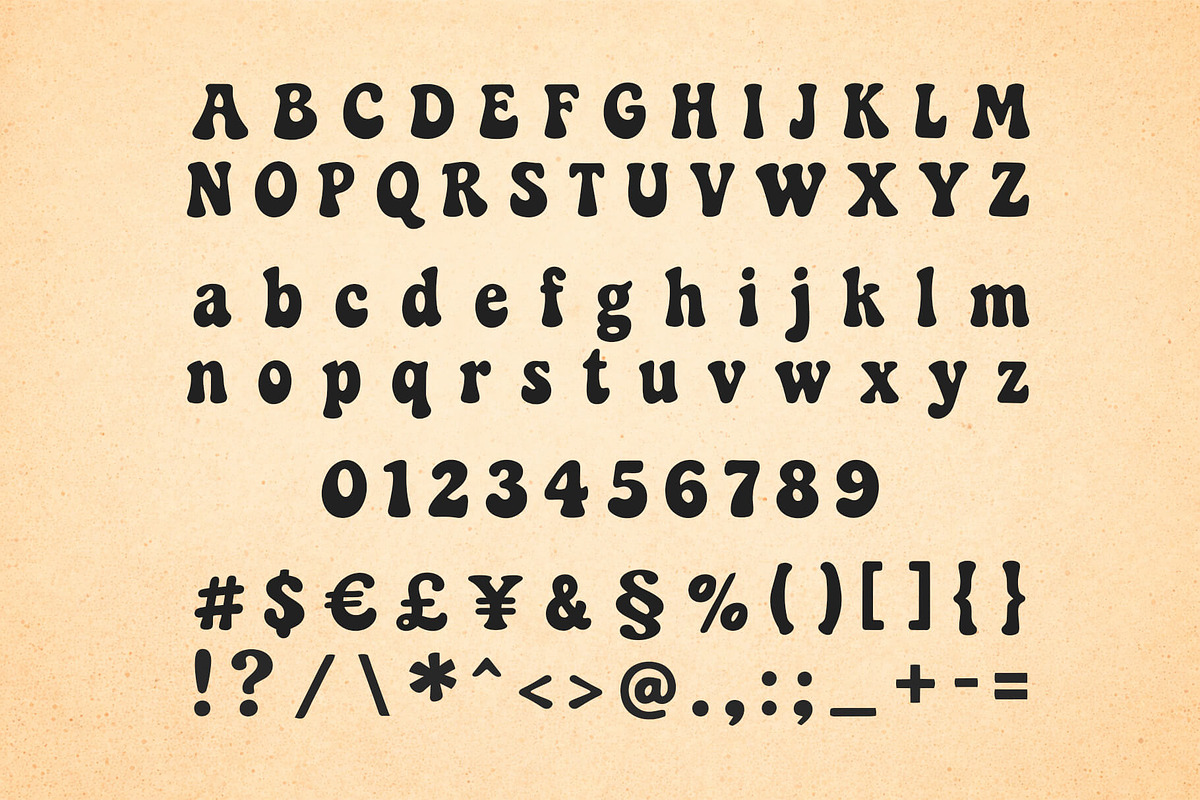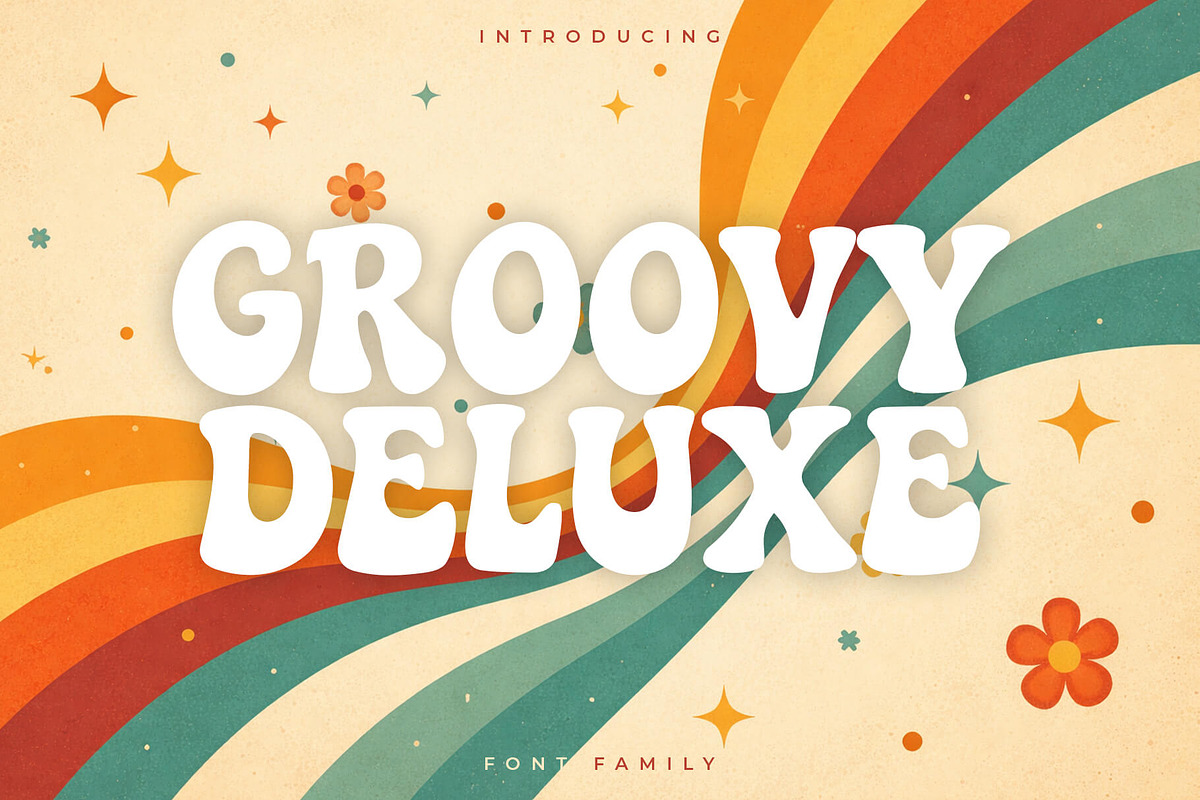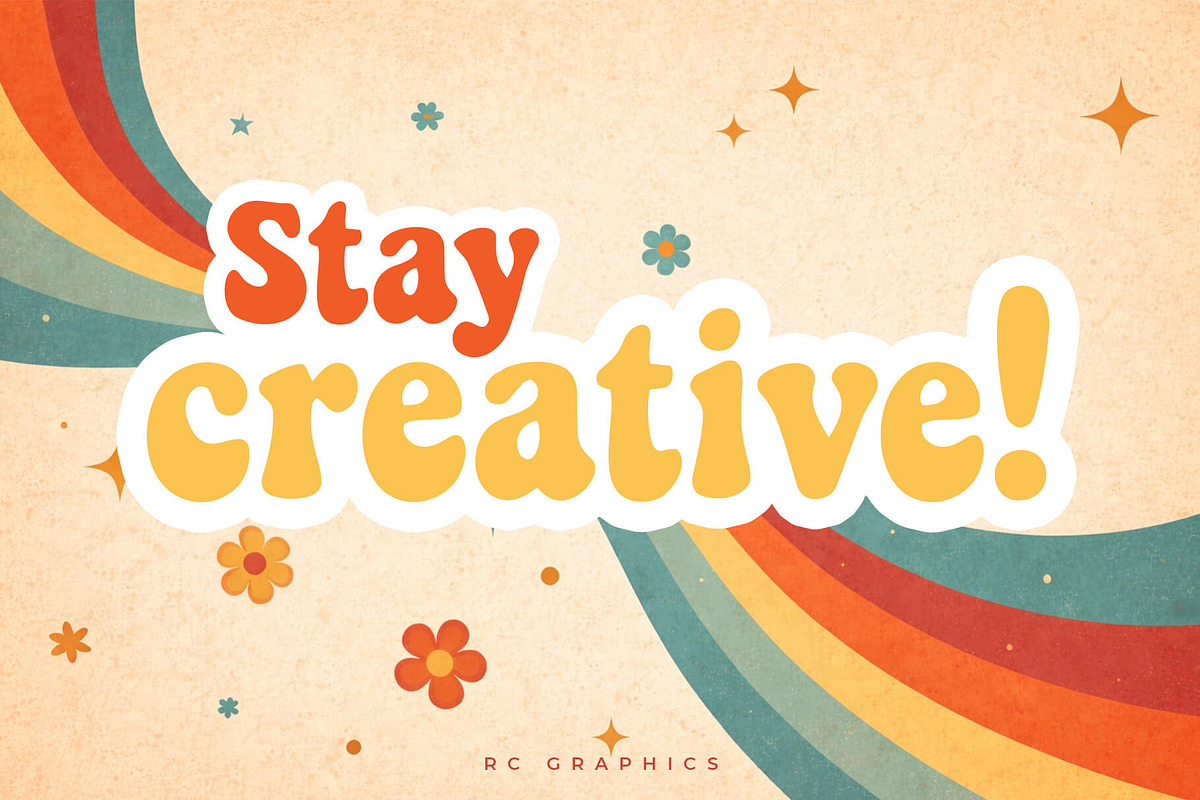
Groovy Deluxe - Retro groovy display
Looking for an instant shot of retro vibes? Groovy Deluxe is a groovy, vintage-inspired typeface, straight out of the golden age of the 1970s, funk, disco, and psychedelic culture.
Perfect for: Retro logos and visual identities, posters, flyers, and album covers, music, lifestyle, and event branding, t-shirts, stickers, merch, and packaging, creative projects that want to stand out with style.
Groovy Deluxe is ready to make your projects vibrate. Let the groove speak.